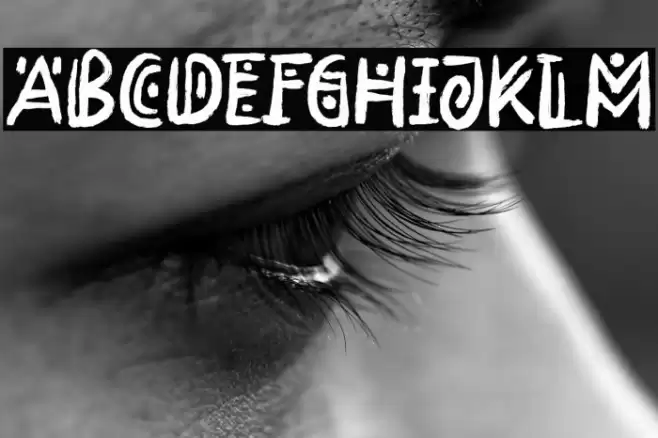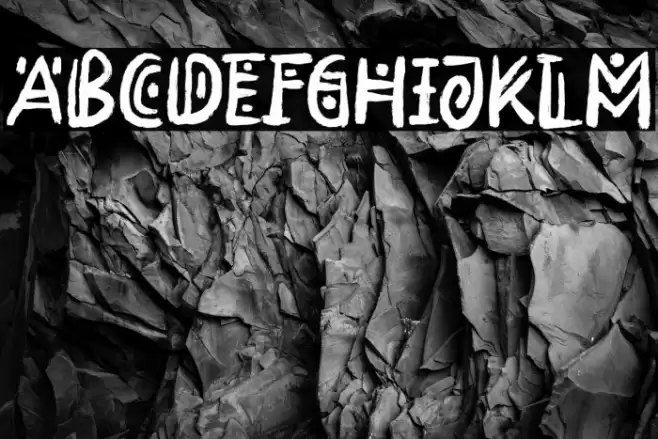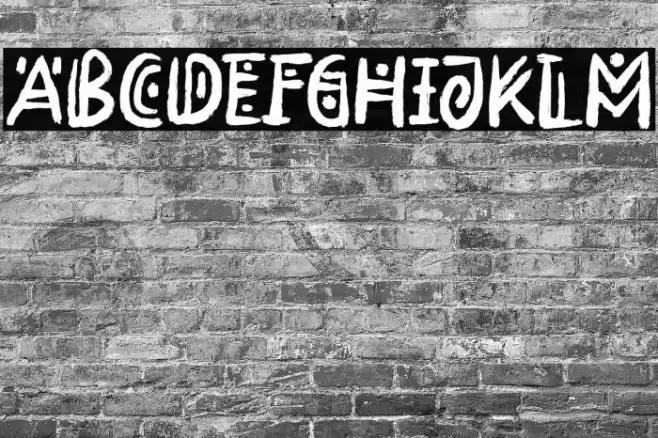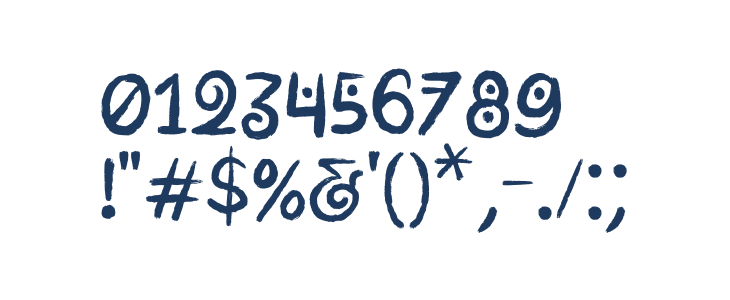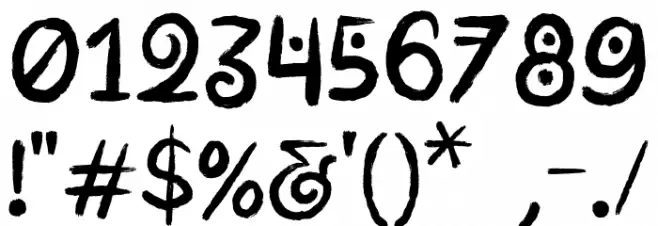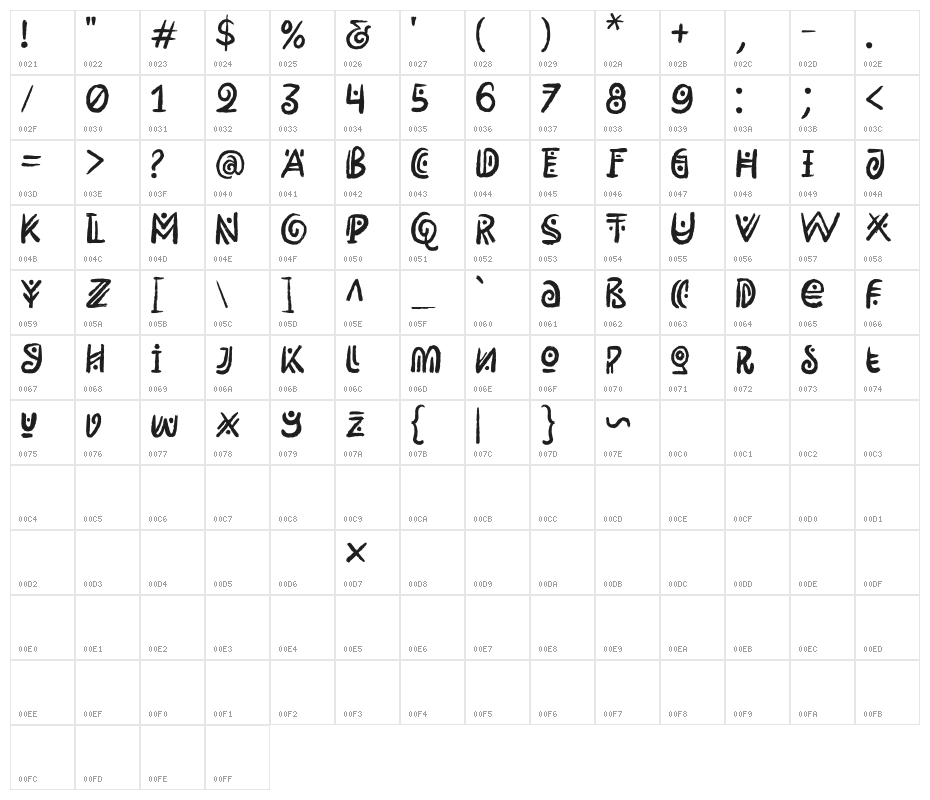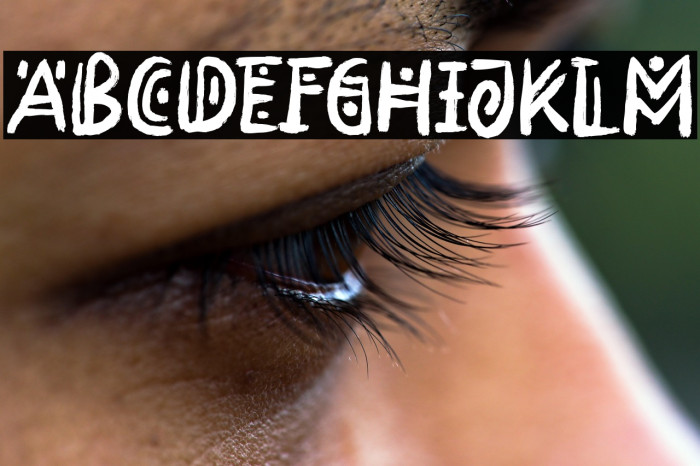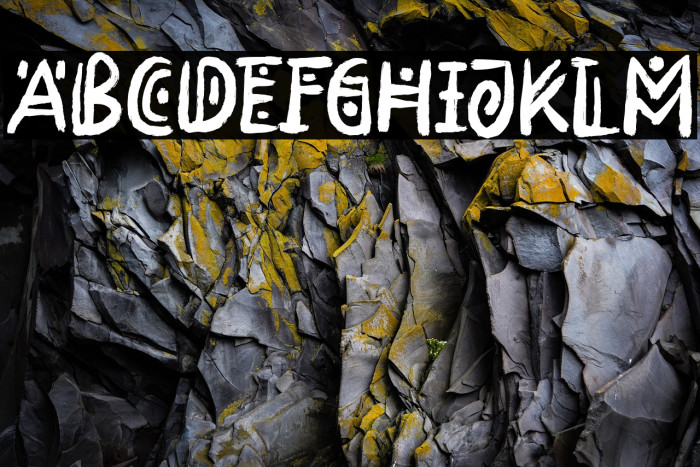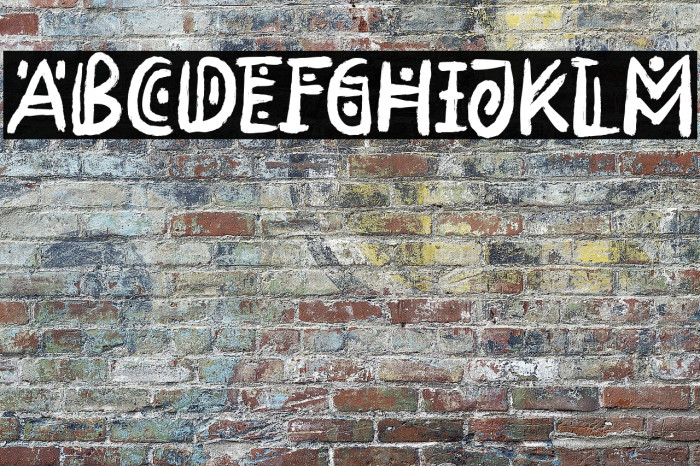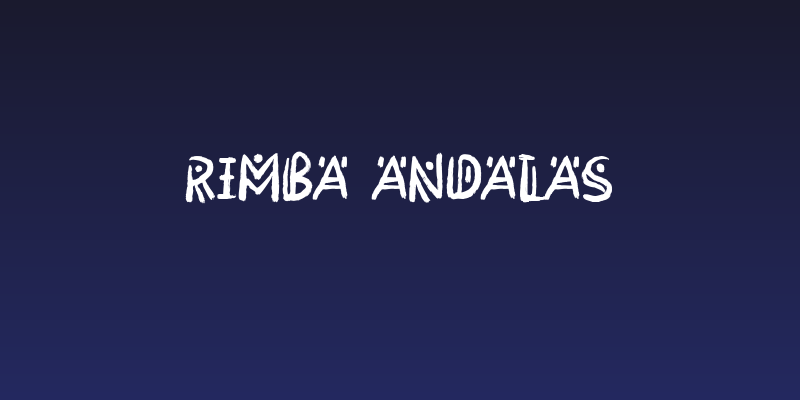
Rimba Andalas Font
Rimba Andalas Description
This font features a bold and expressive style with a hand-drawn appearance. The characters are thick and uneven, giving a raw and artistic feel. The uppercase and lowercase letters share a similar design, with exaggerated curves and strokes that create a sense of movement. The numbers and special characters maintain the same boldness and artistic flair, making them stand out. The overall look is playful and dynamic, suitable for creative and informal projects. The font's unique style makes it ideal for capturing attention and conveying a sense of individuality.
A bold, hand-drawn font with an expressive and artistic style from Uncategorized fonts.
- Font: Rimba Andalas
- Proposed Projects: Ideal for posters, album covers, artistic branding, and creative social media graphics.
- Overall Style: Artistic, Playful